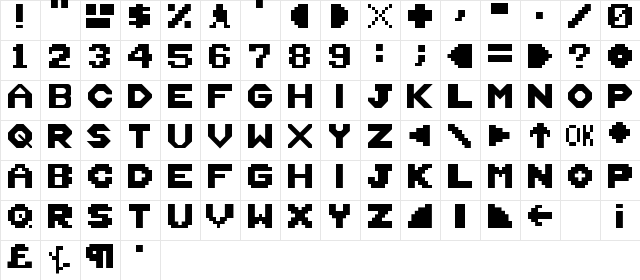
Wobble Board Regular
| Designer | Omegaville |
Design Context for Wobble Board Typeface
Wobble Board is a composed and adaptable typeface that performs quietly and consistently across a wide range of design contexts.